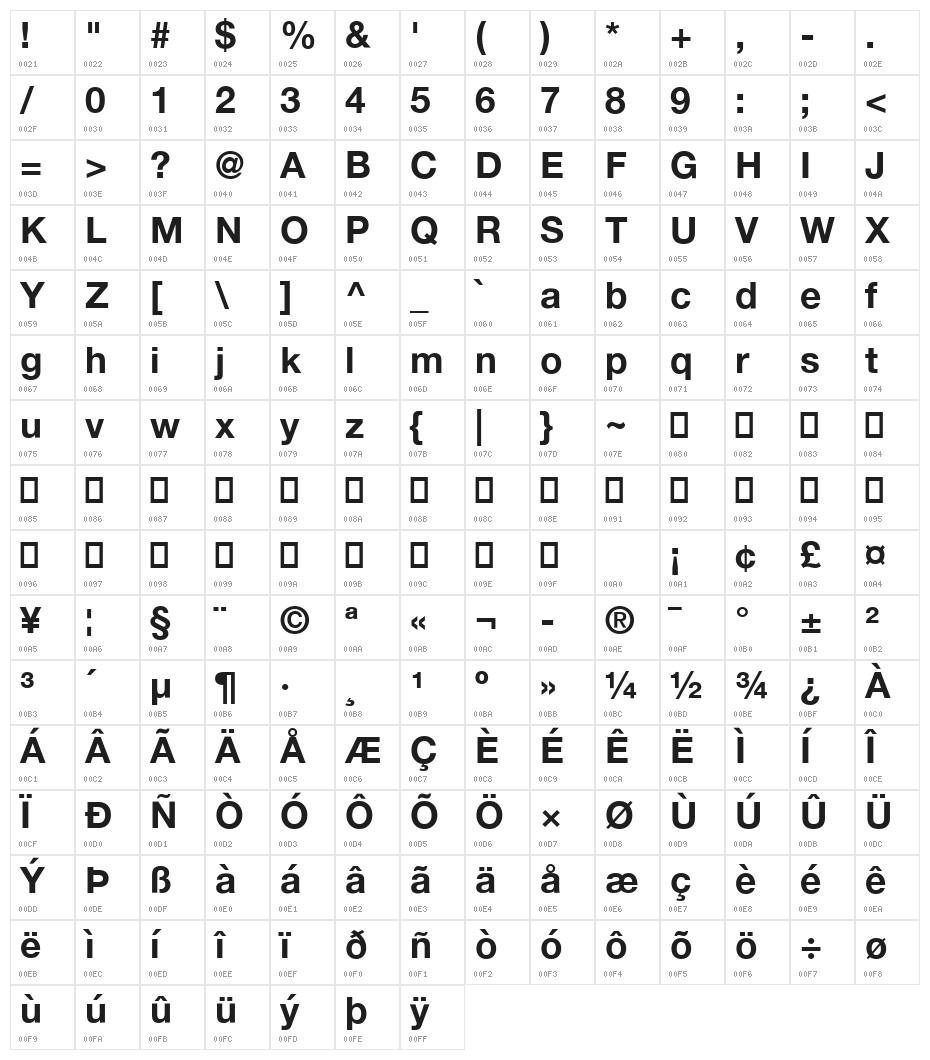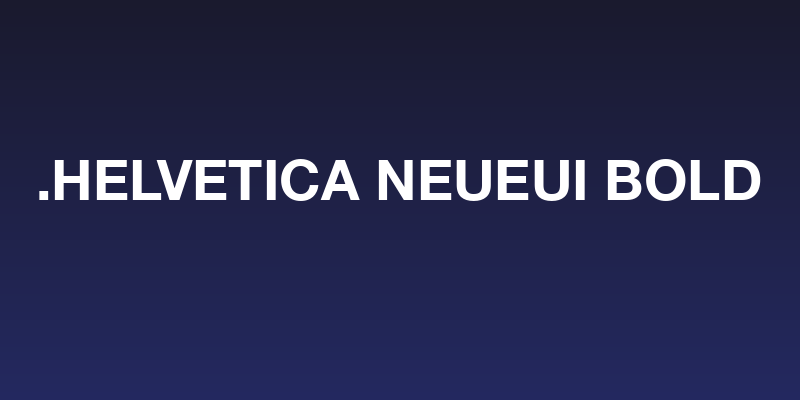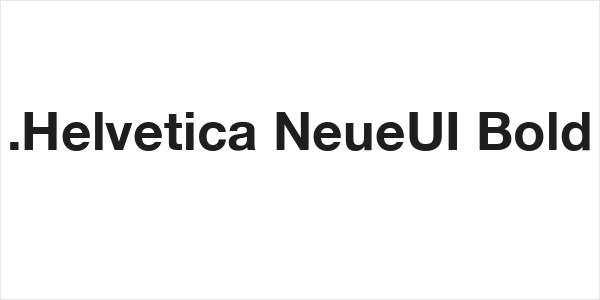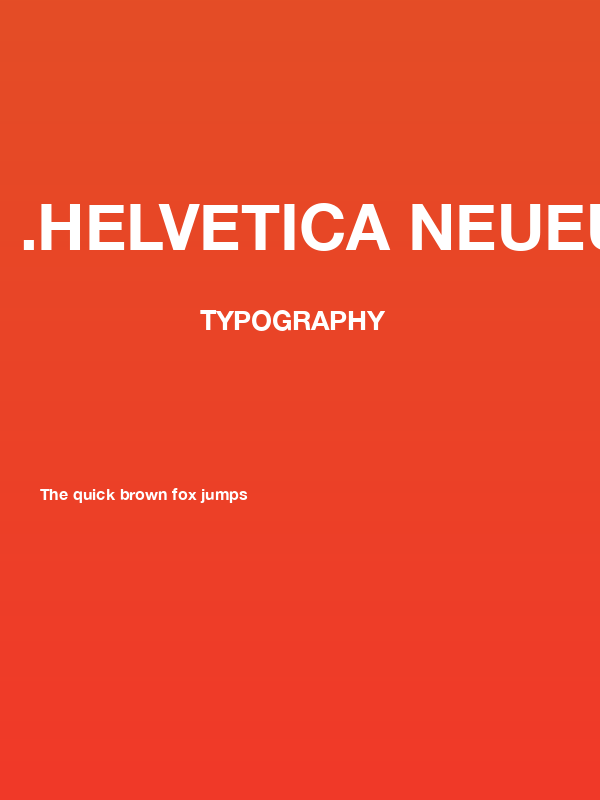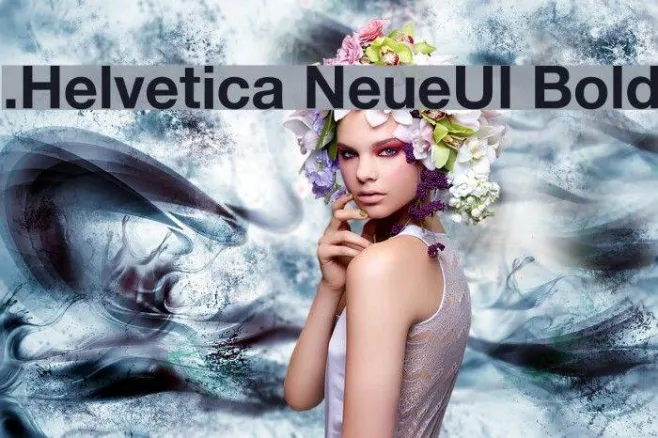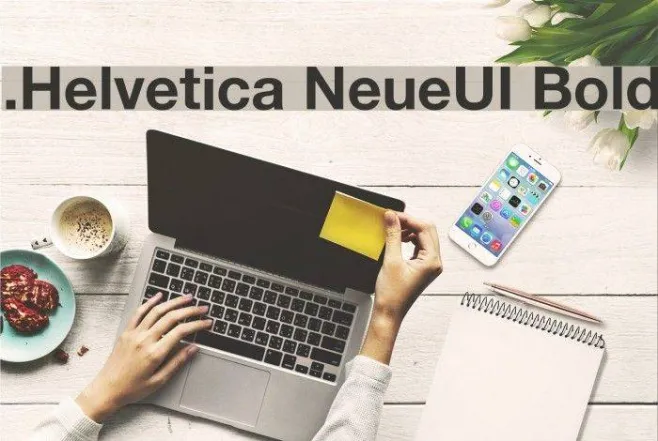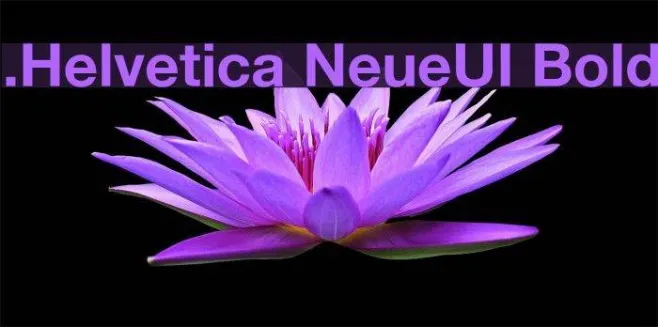
.Helvetica NeueUI Bold Font
.Helvetica NeueUI Bold Description
This font exhibits a clean and modern sans-serif style with bold weight, offering excellent readability and a contemporary aesthetic. The characters are well-proportioned with a consistent stroke width, contributing to its balanced appearance. The uppercase and lowercase letters maintain a uniform height, while the numerals are clear and distinct. Special characters are designed with precision, enhancing the font's versatility. Its simplicity and clarity make it suitable for a wide range of applications, from digital interfaces to print media.